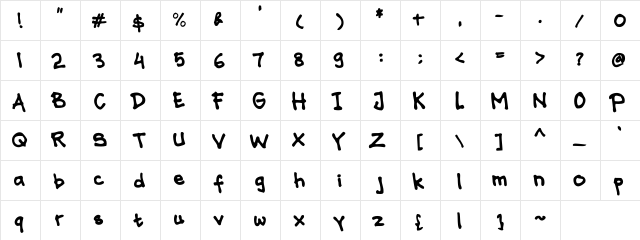
I LOVE INDONESIA Regular
| Foundry | Indra Gunawan |
| Designer | Indra Gunawan |
Design Context for I LOVE INDONESIA Typeface
I LOVE INDONESIA is a composed and adaptable typeface that performs quietly and consistently across a wide range of design contexts.